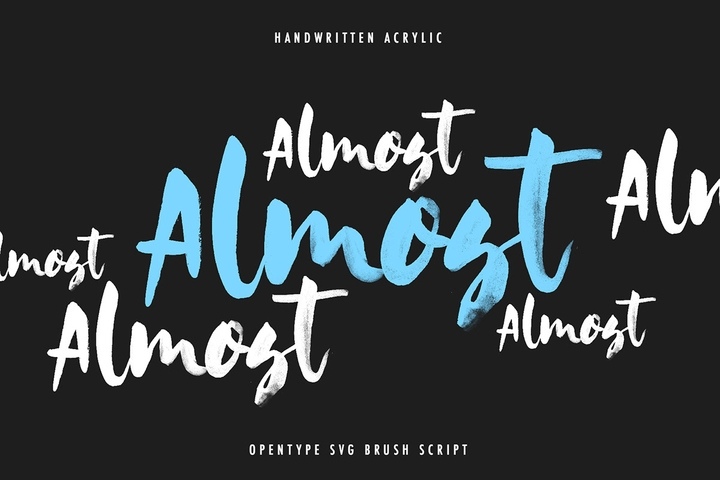
Almost Vol.2 Font
Almost Vol.2 Font is perfect for contemporary creative studios, indie brand identities, artistic project marketing, experimental design agencies, modern cafe signage, trendy fashion labels, alternative music venues, and progressive cultural organizations. This innovative typeface excels in applications where creative evolution and artistic progression are essential for creating distinctive and forward-thinking brand experiences that celebrate design innovation.
What makes Almost Vol.2 Font truly exciting is its sophisticated evolution of design principles and creative refinement that represents the continuous journey toward typographic perfection and artistic excellence. The font features carefully refined letterforms with enhanced character details and improved proportions that demonstrate the iterative process of creative development and design maturation. Its progressive personality and evolved character create an immediate sense of artistic growth and creative sophistication that resonates with audiences seeking authentic design innovation and creative excellence. The typeface's evolutionary appeal and refined craftsmanship make it perfect for brands wanting to convey progress, creativity, and connection to the ongoing pursuit of artistic perfection and design innovation.
The Almost Vol.2 Font family includes enhanced weight variations and improved stylistic alternates, complemented by refined decorative elements and progressive design features. The font offers comprehensive character sets with creative symbols, artistic ligatures, and contemporary styling details that enhance its innovative aesthetic. Additional graphic elements including modern flourishes, creative patterns, design motifs, and artistic ornaments provide designers with complete branding tools rooted in contemporary design evolution and creative progression.